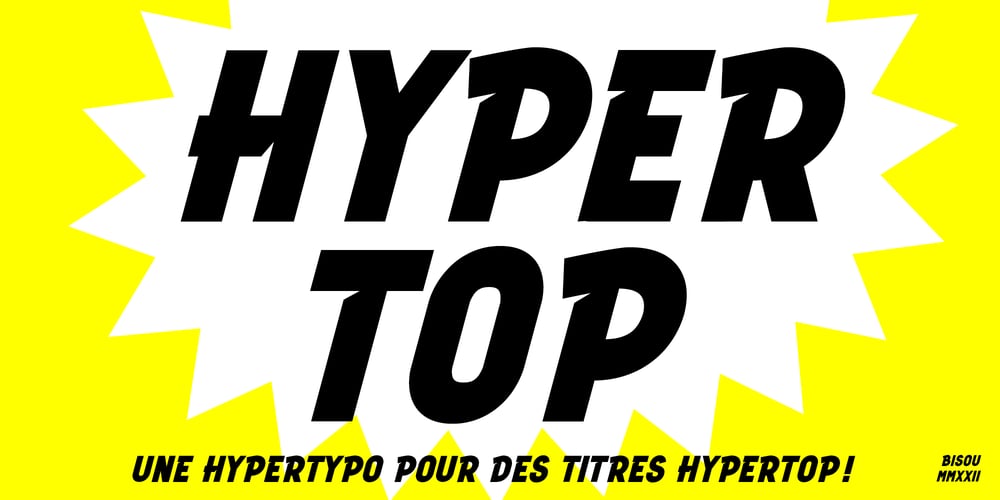
Hyper Top
Hyper Top font
Hyper Top Font Family was designed by Mathias Antonietti and published by Bisou. Hyper Top contains 2 styles and family package options. Made in La Chaux-de-Fonds (Switzerland), Hyper Top is born while the designer (Bisou) watches “One from the Heart”, a movie from Francis Coppola where Las Vegas is completely rebuilt in studio. The opening scene stages the signboard of the Dunes hotel and casino. This is the starting point of the most modern font ever designed by Bisou.Hyper Top is thought from ground up to give a strong impact. Dynamic, joyful, fast, this modern bold font is best suitable titles. It works perfectly with short texts for advertisement like candies, fireworks, protein bars or chewing gums. Just hang it over a prank and trap shop and see the coolest bad ass kids come in.